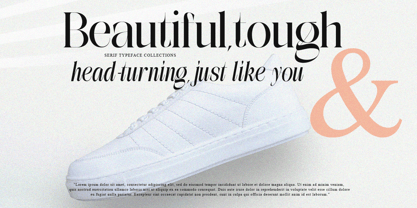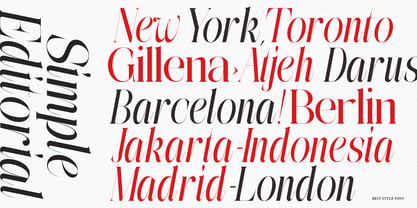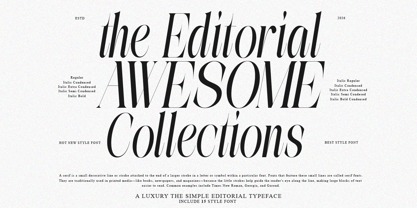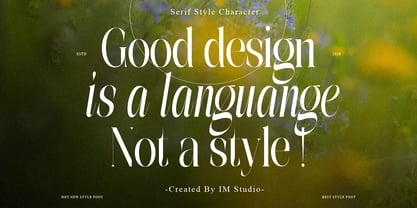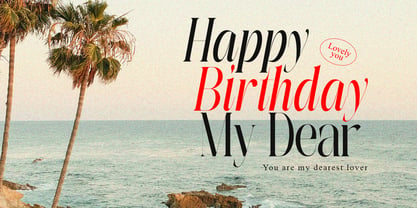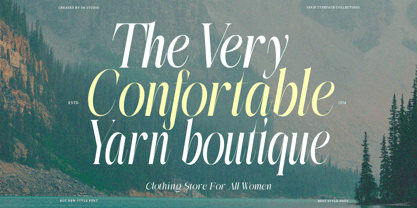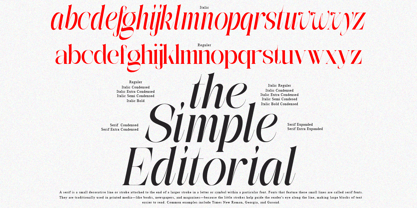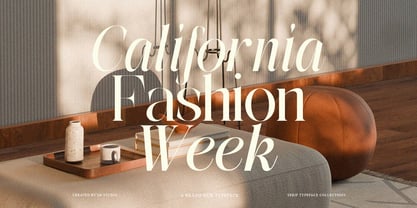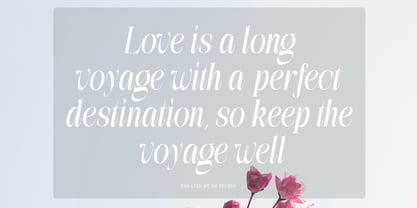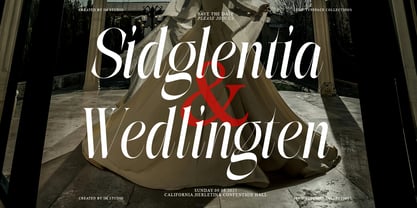
The Simple Editorial
Die Schriftfamilie The Simple Editorial wurde von Ikhsan Maulana entworfen und von IM Studio veröffentlicht. The Simple Editorial enthält 15 Stile und Familienpaketoptionen. Mehr über diese Familie
Meet your new go-to serif — a typeface that feels like it was pulled straight from the golden age of print, yet belongs completely in today's design landscape.
The Simple Editorial is a bold, versatile editorial serif built for designers who refuse to choose between classic and contemporary. Rooted in the visual language of vintage publications, iconic signage, and mid-century advertising, this typeface carries an unmistakable retro soul — while staying effortlessly at home in modern brand systems, editorial layouts, and luxury packaging.
15 styles. Endless range. With 9 carefully crafted weights plus matching italics, you get a full typographic toolkit — from whisper-thin elegance to commanding display weight. Add refined ligatures into the mix, and every headline, logotype, or body copy block carries that extra layer of craft.
Designed for versatility, built for impact. Whether you're art-directing a heritage-inspired brand, laying out a high-end magazine spread, or crafting packaging that demands a second look — The Simple Editorial delivers. Every weight, every curve, every letter is designed to make an impression.
15 Fonts Total — 6 Regular Serifs + 9 Italics ✦ Elegant Ligatures for refined typographic detail Multilingual Support for global projects ✦ Timeless × Modern — a voice that feels classic yet impossibly fresh
Whether you're a brand designer, art director, or typographic enthusiast — The Simple Editorial gives your work the kind of personality that doesn't fade.